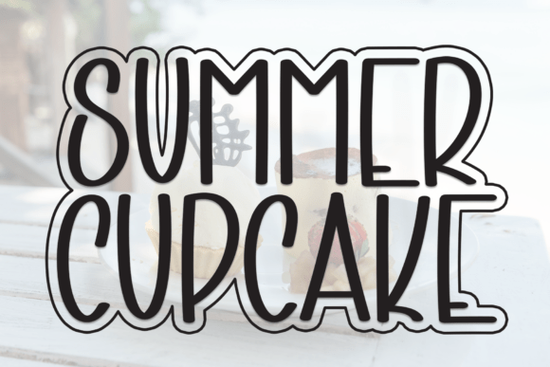
Finding the right typography for a lighthearted project often means looking for something that feels personal rather than corporate. If you are designing wedding stationery, birthday cards, or summer-themed merchandise, the Summer Cupcake Font offers a charming and personable handwritten look. As a playful addition to your collection of display fonts, this typeface brings a cozy energy to your artwork without sacrificing readability. Whether you are a seasoned graphic designer or a weekend crafter making custom gifts, choosing a friendly script helps your message feel warm and inviting.
What projects work best with a playful handwritten typeface?
When working with a bouncy, informal script, you want to choose mediums where a relaxed tone is appropriate. This specific typeface shines in social and celebratory contexts. Print-on-demand sellers often use this style of lettering for custom coffee mugs, canvas tote bags, and casual apparel. For small businesses, it is an excellent choice for boutique packaging, handwritten thank-you notes, and seasonal sale graphics.
How do you maintain readability in wedding invitations?
Wedding invitations require a delicate balance between elegance and legibility. A heavily stylized script might look beautiful but can frustrate guests trying to read the venue details. The key is to use the handwritten font strictly for names, dates, and short headings. Keep the body text, like the address and dress code, in a clean sans-serif or traditional serif.
How should you pair a casual script with other typography?
Typography pairing is essential for creating professional-looking designs. Since a handwritten display font already has a lot of personality, it needs a quiet partner. Avoid combining two different scripts, as they will compete for attention. Instead, pair your playful letters with a simple, geometric sans-serif font.
- Use contrasting weights: If your main title is thick and bouncy, use a thin, light font for the subtitles.
- Give it space: Handwritten styles often have tall ascenders and deep descenders. Increase the line spacing so the letters do not overlap awkwardly.
- Limit your palette: Stick to two, or at most three, different typefaces in a single layout to avoid visual clutter.
Are there specific design techniques for vinyl cutting?
When using a handwritten font for Cricut or Silhouette projects, welding your letters is a crucial step. Most script typefaces are designed so that the end of one letter connects naturally to the beginning of the next. However, cutting software will treat every single letter as a separate shape unless you tell it otherwise.
Select your text box and use the weld tool to merge the characters into one continuous path. This prevents the cutting machine from making unnecessary slices through the connecting lines, resulting in a much smoother weeding process. If you need more inspiration for bakery-themed crafts, you can revisit the main product page for this sweet display typeface to see standalone words that require minimal welding.
- Weld all connected script letters before sending your file to the vinyl cutter to prevent unwanted cut lines.
- Pair the playful script with a highly legible sans-serif for your body text.